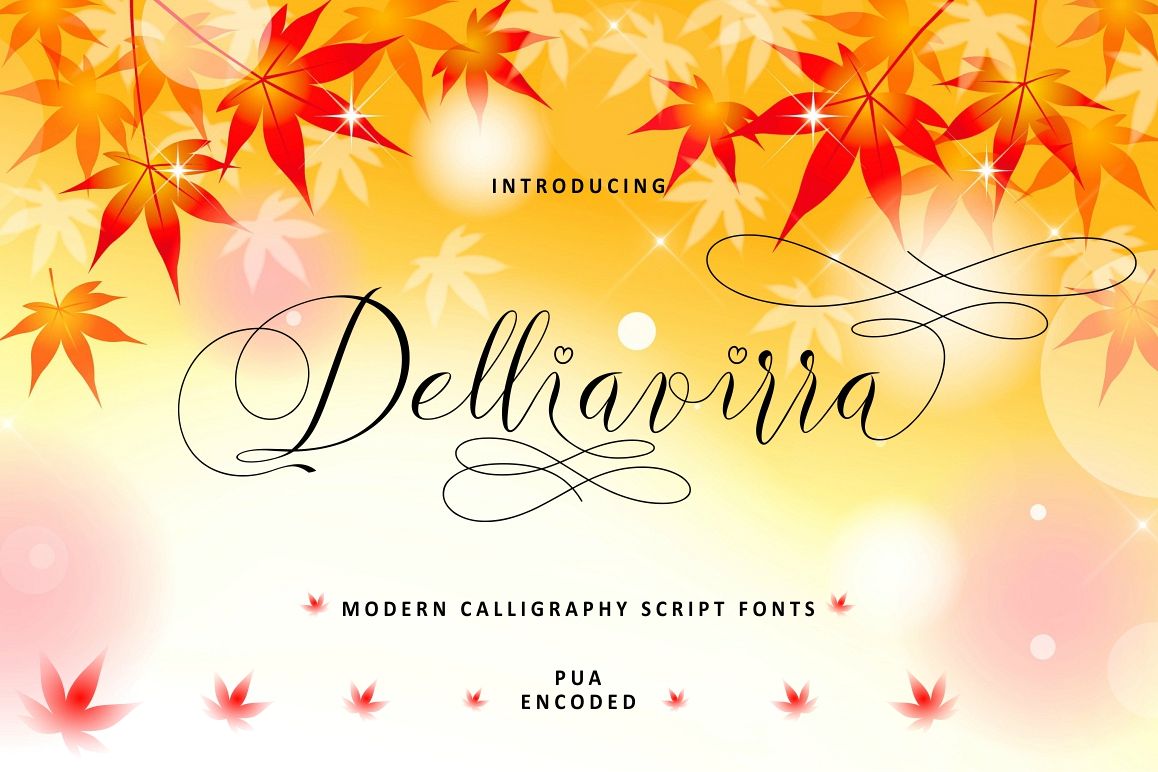
Delliavirra
One more introduce "Delliavirra" font script, This font is inspired by fashion in a delicate style of handwriting. Equipped with an Alternate and ligature so the font looks very beautiful. suitable for use in many of your needs. such as brand or logo, greeting cards, invitations and much more. hope you are inspired.
Equipped with font:
- numbers
And of course there are several other features
- Alternates